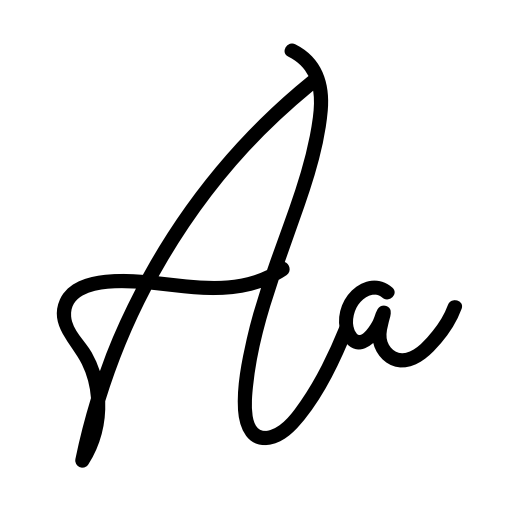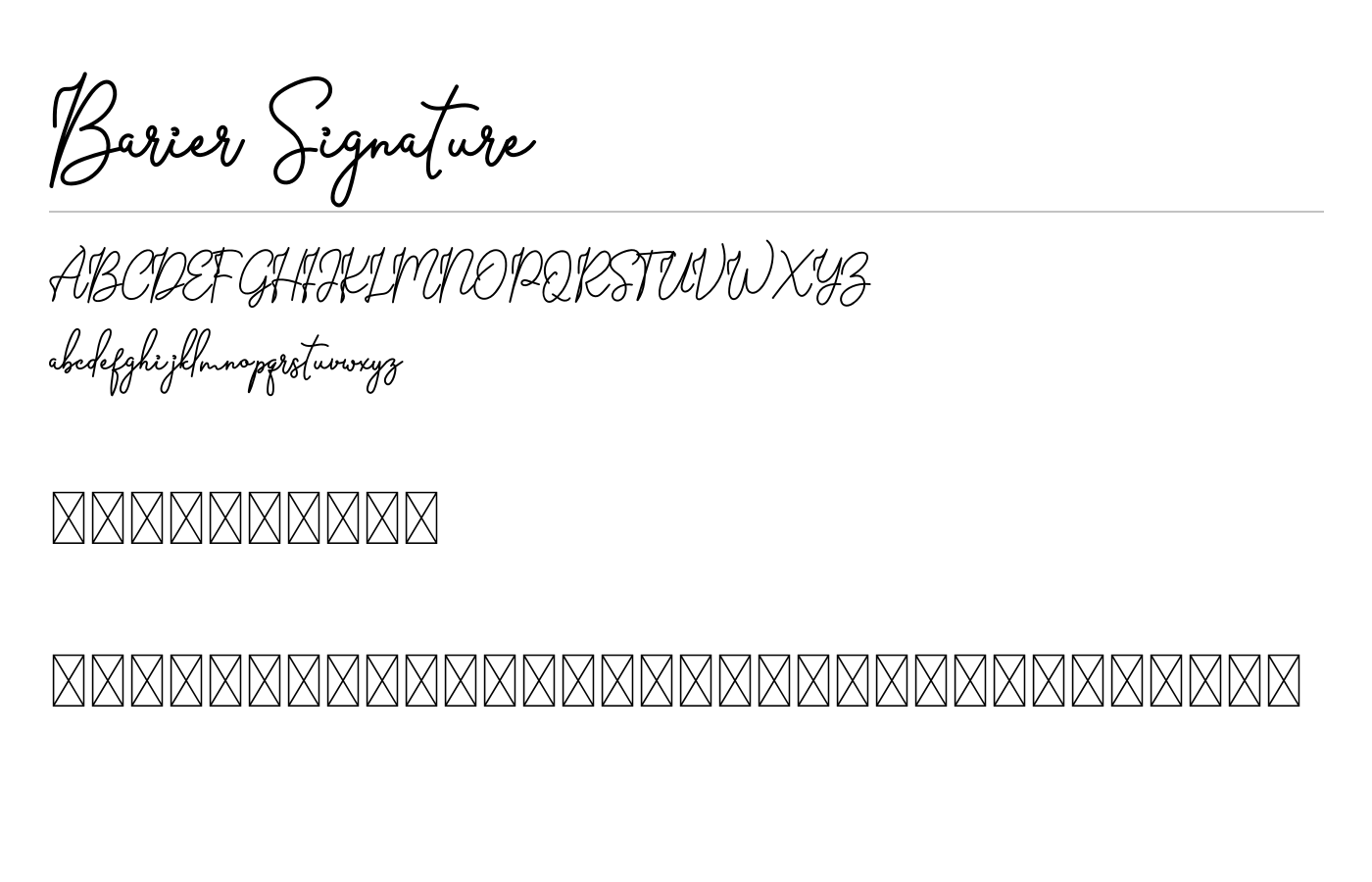
Barier Signature is a delicate, handwritten script font that captures the fluid and personal style of a casual yet elegant signature. Its slender, slightly irregular strokes and tall, narrow letterforms give it a refined, artistic feel, making it perfect for branding, invitations, and any design that seeks a sophisticated, intimate touch. This font works best in logos, social media graphics, and greeting cards where a unique and graceful personality is desired.
Barier Signature Font
About Barier Signature Font